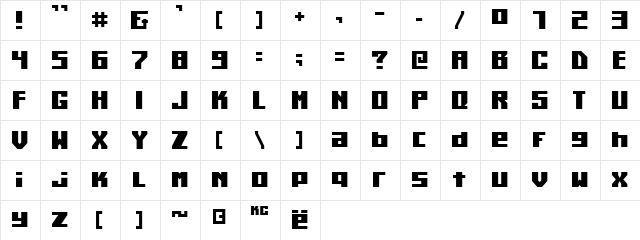
Kiloton Condensed Normal
Design Context for Kiloton Condensed Typeface
Kiloton Condensed is a composed and adaptable typeface that performs quietly and consistently across a wide range of design contexts. The condensed width makes it efficient for tight spaces without sacrificing legibility.